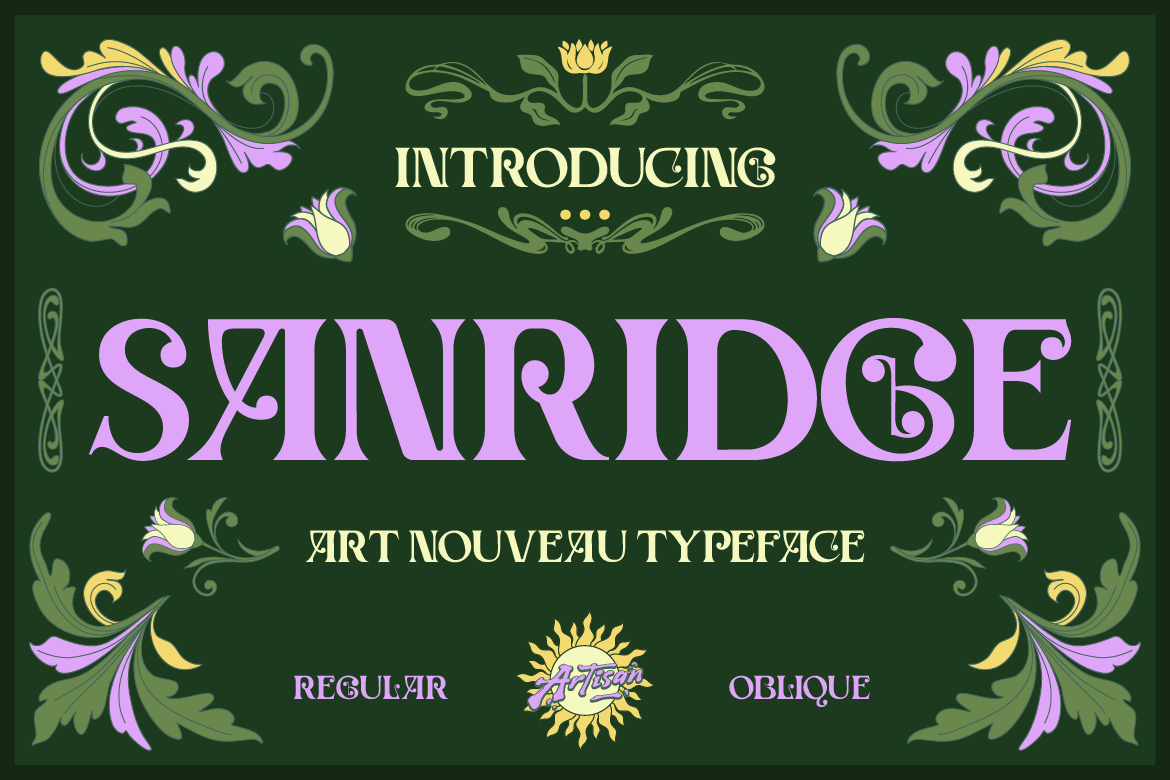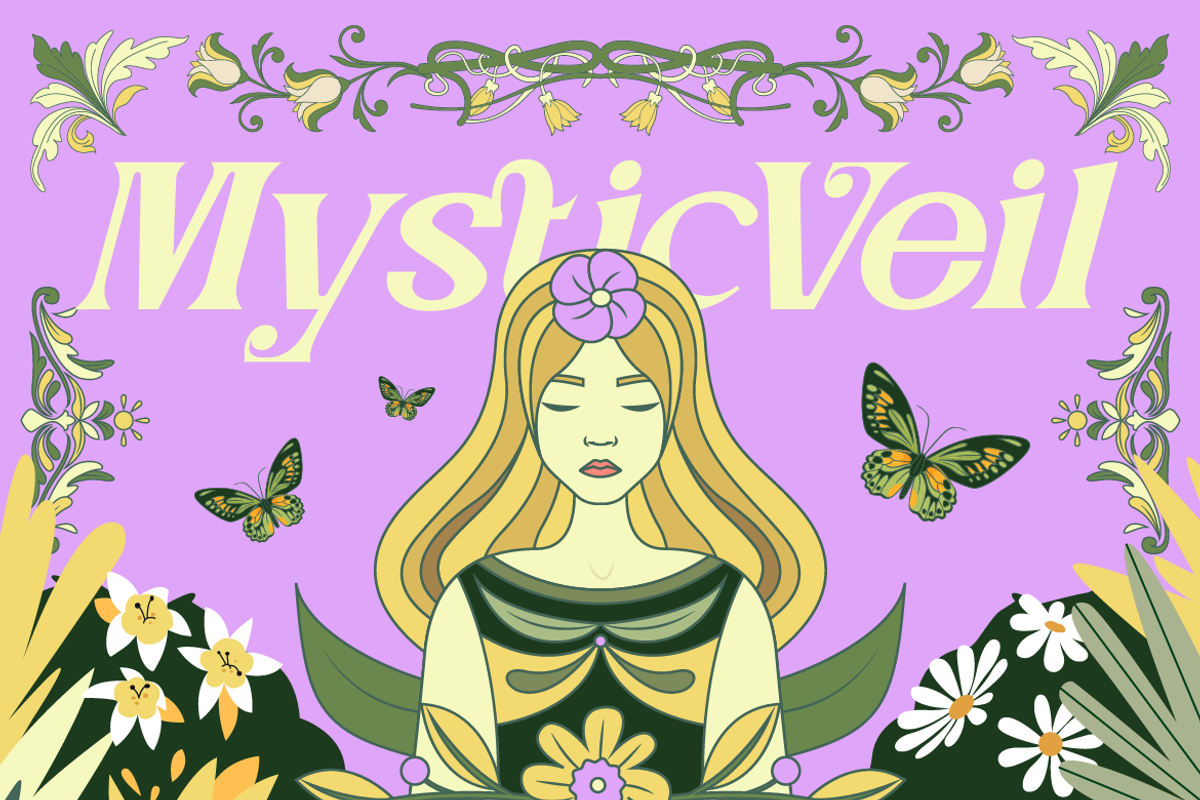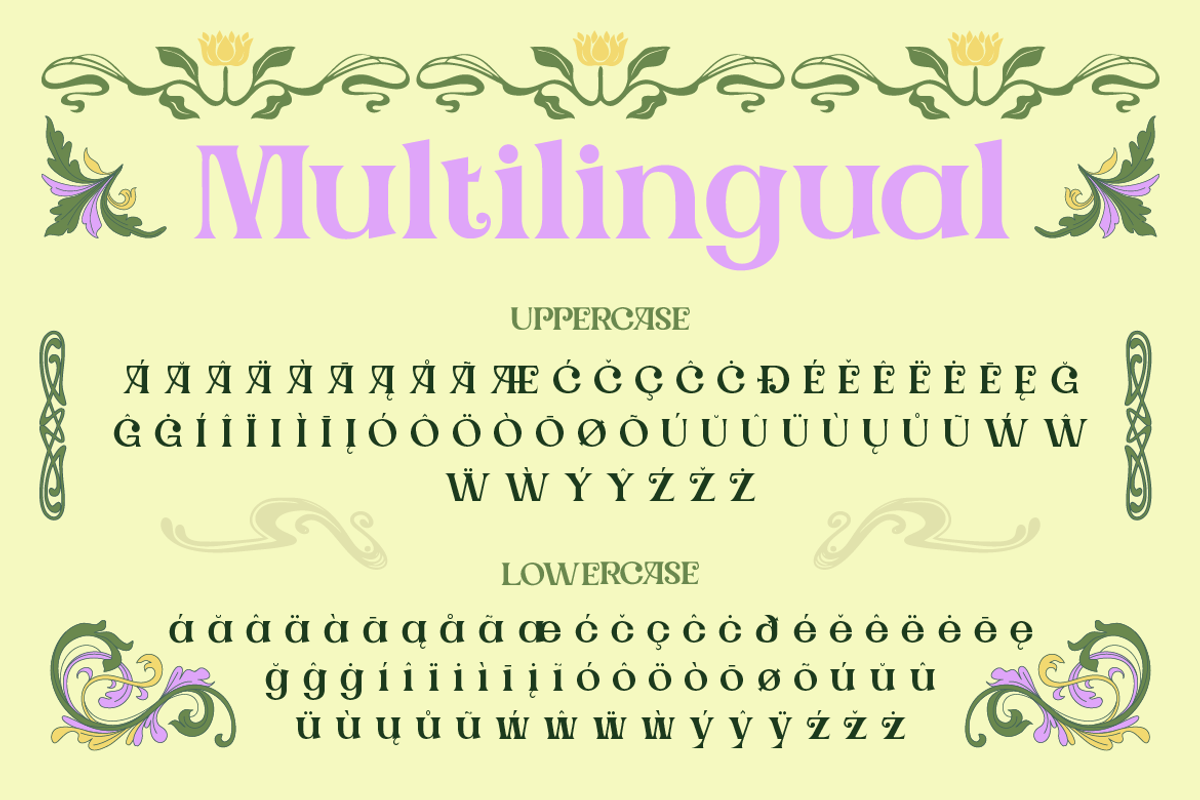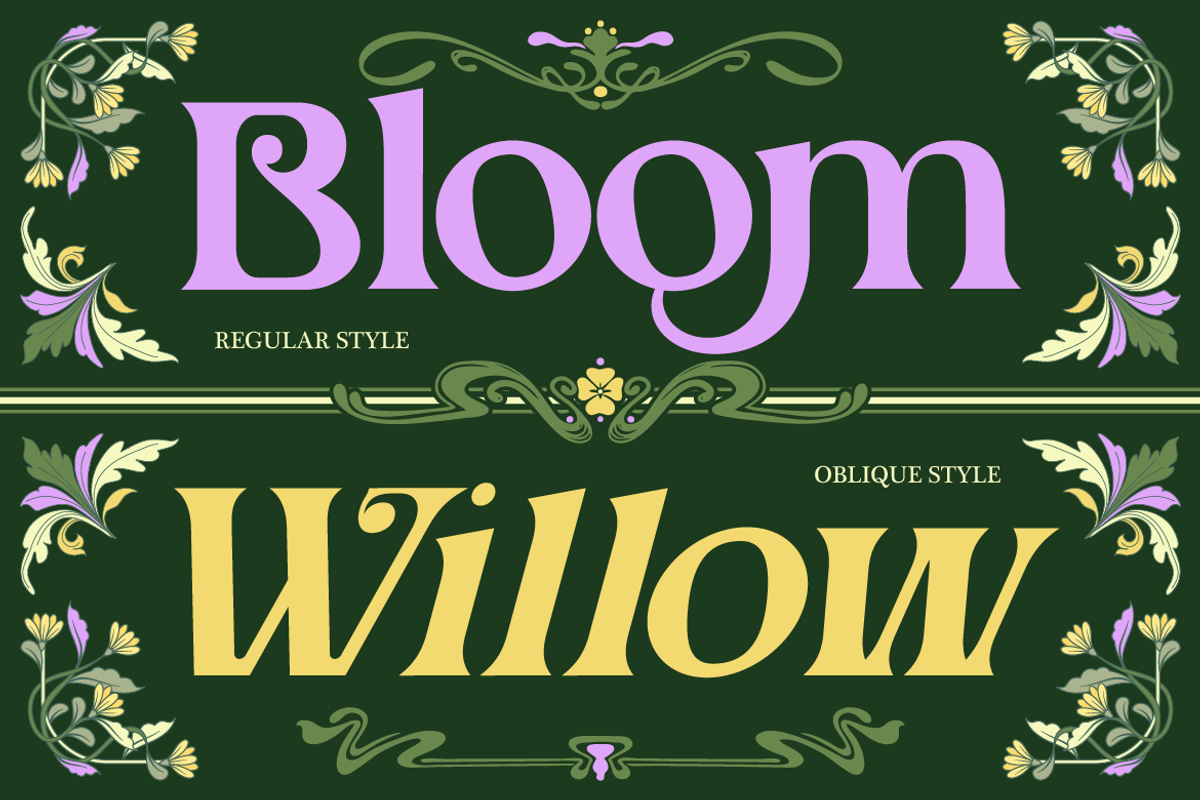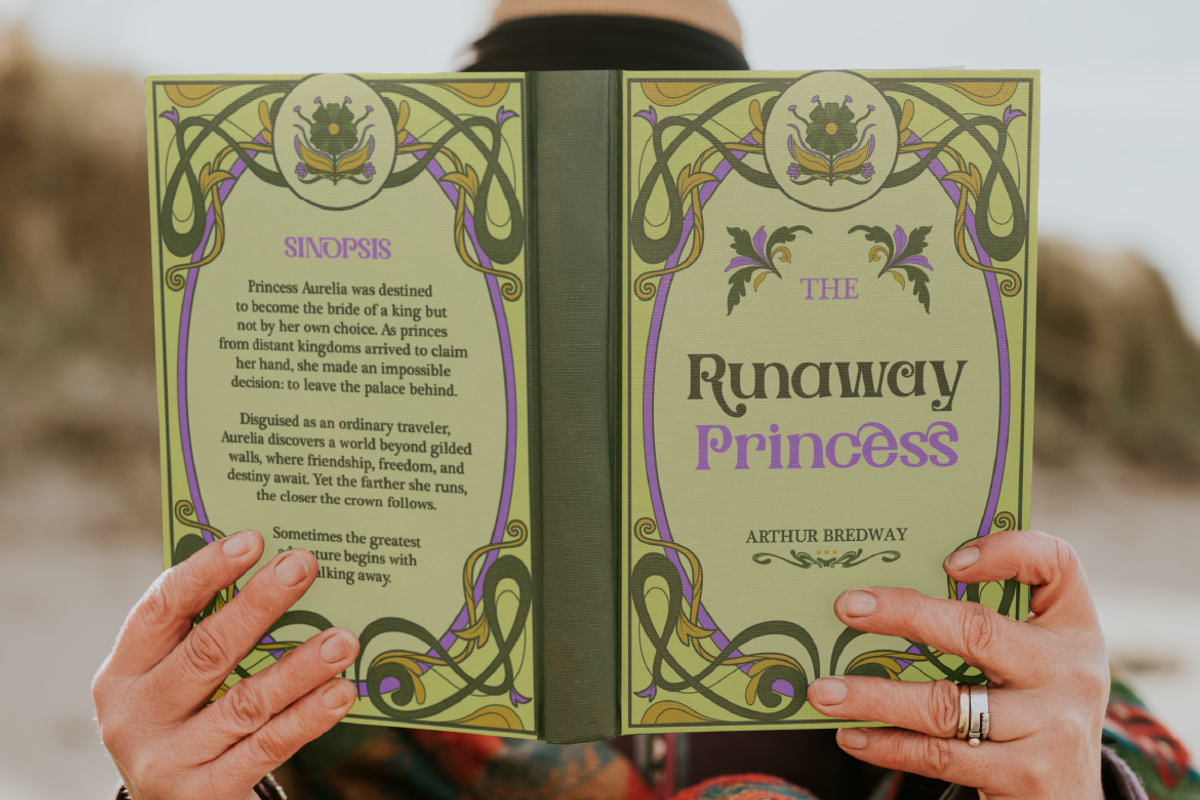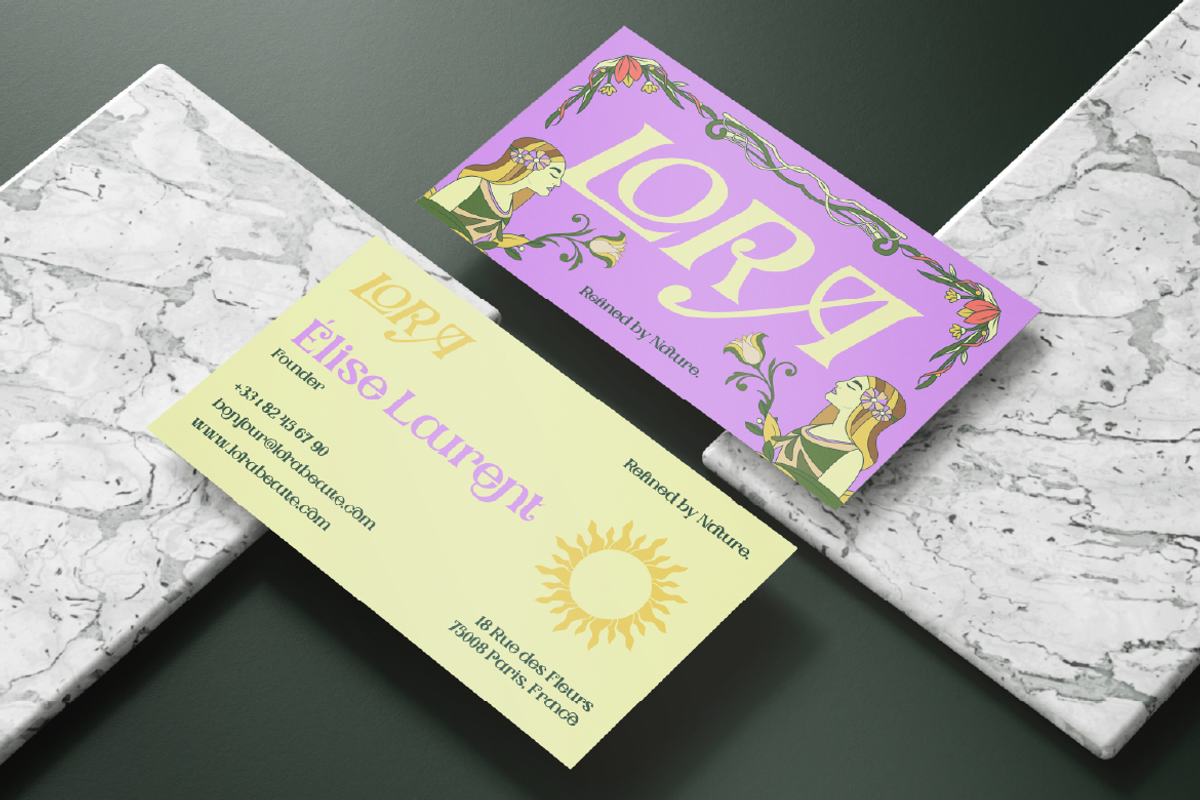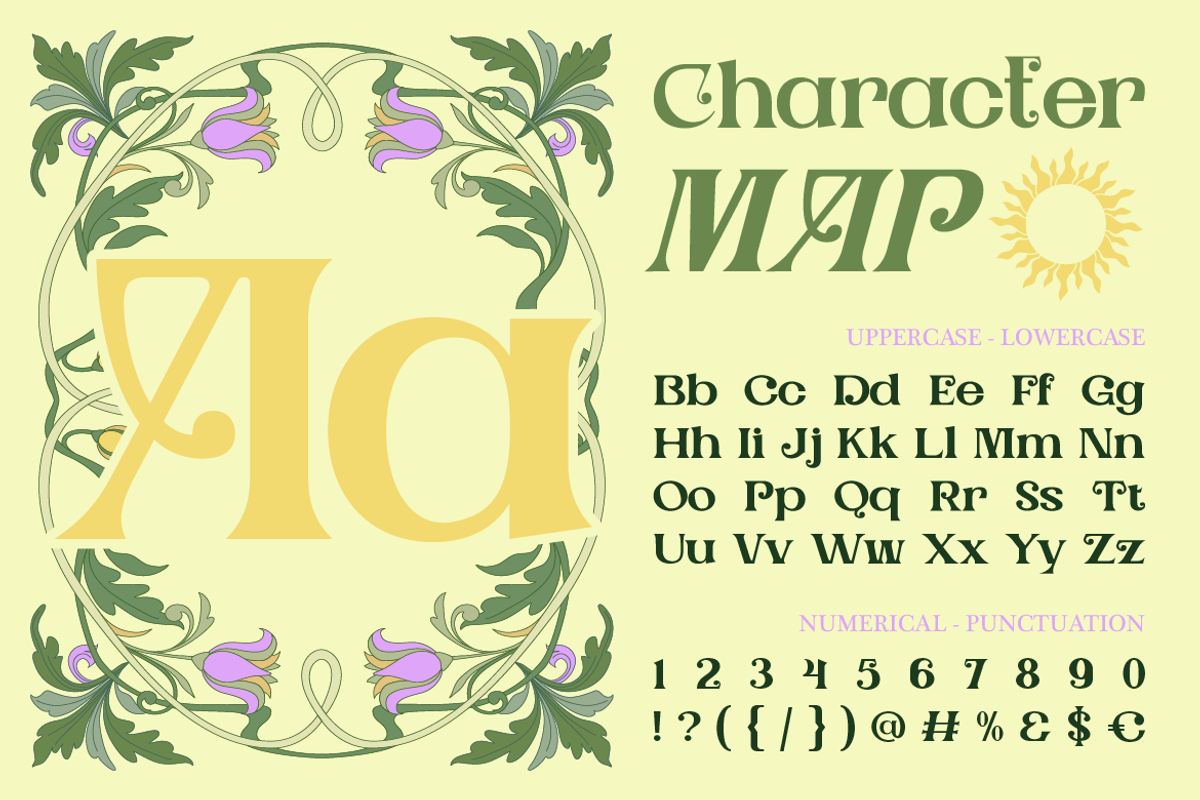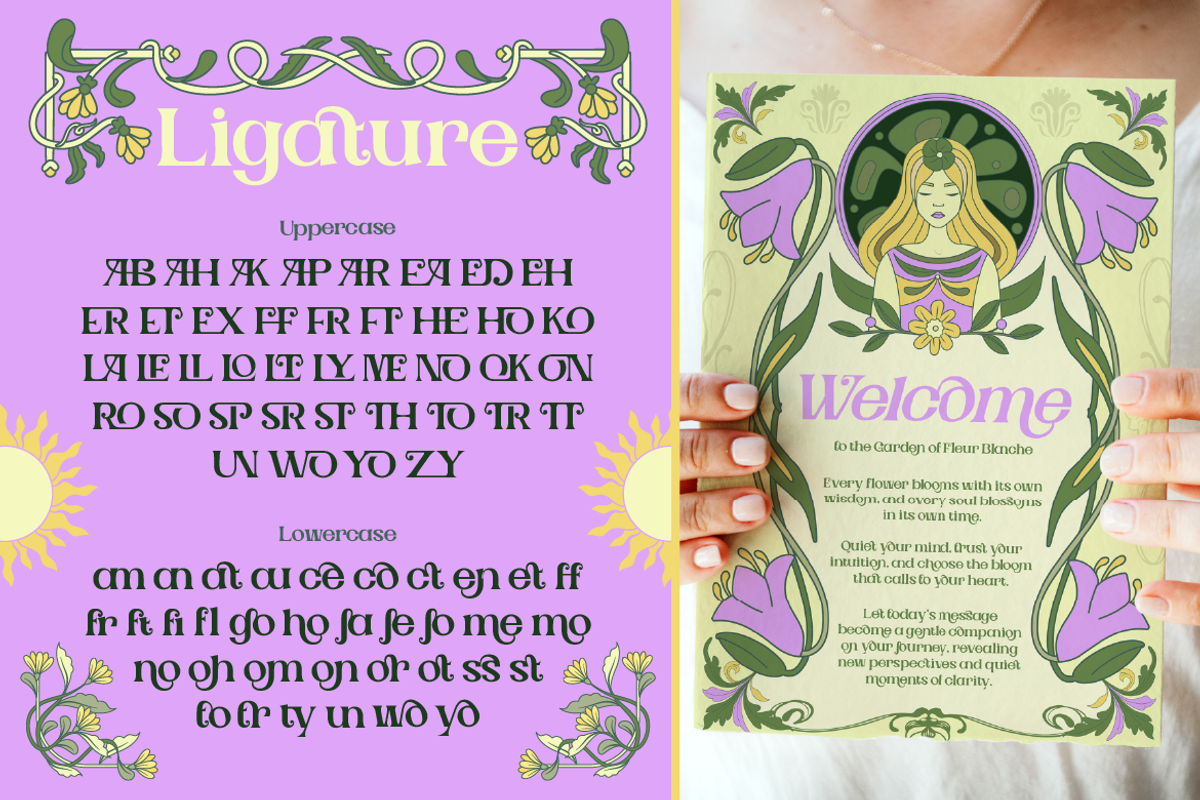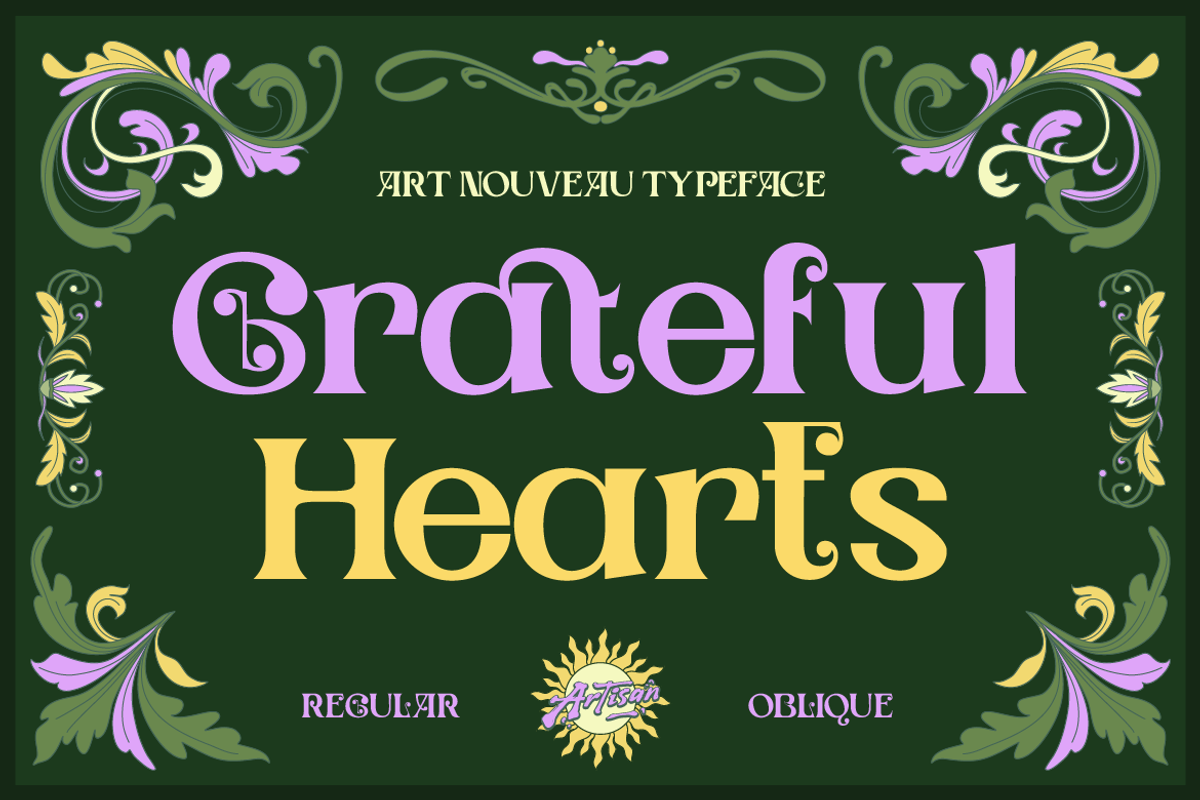
Sanridge - Art Nouveau Typeface
Sanridge is an elegant Art Nouveau display typeface that captures the romantic, flowing spirit of the early 20th century design movement. With its decorative curves, ornamental details, and vintage character, Sanridge brings timeless sophistication to any creative project.
This typeface comes in two complete styles, Regular and Oblique, giving you flexibility for headlines, branding, and editorial layouts. You can customize your typography and create a truly unique look every time. Multilingual support with accented characters make this font ready for international projects.
Whether you're designing a wedding invitation, a beauty brand logo, a boutique hotel sign, or a vintage-inspired poster, Sunridge adds an artistic, hand-crafted elegance that instantly elevates your work.